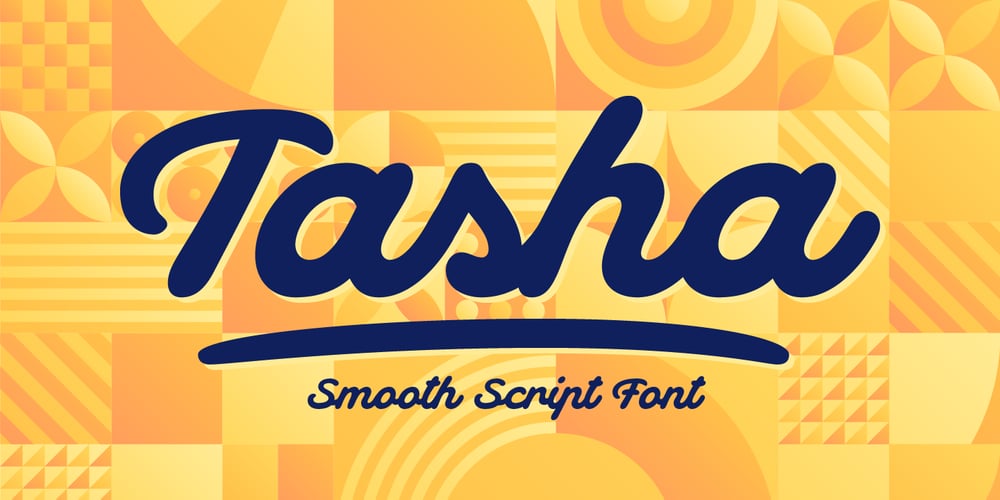
Tasha Font Family was designed by Gleb Guralnyk and published by Gleb Guralnyk. Tasha contains 1 styles and family package options. Hi, introducing a script font named Tasha. It’s a trendy typeface with smooth flowing shape. Tasha font supports english and most of european latin languages and also has ukrainian cyryllic alphabet (check out the screenshot with all available glyphs).There are also 9 special underscore glyphs, you can access them by typing “_1” with turned on standard ligatures feature (Check out a presented screenshot). Please make sure that your software supports OpenType Features.